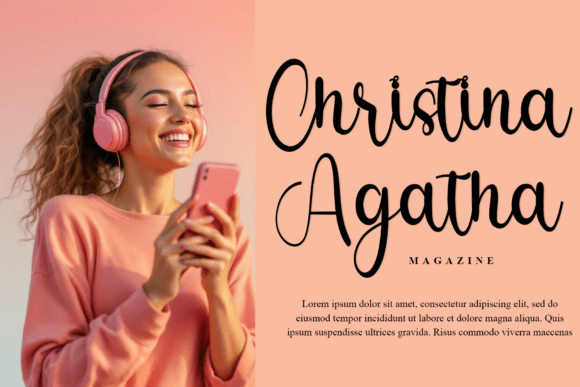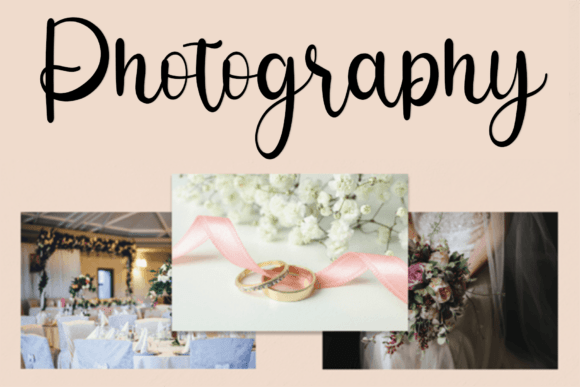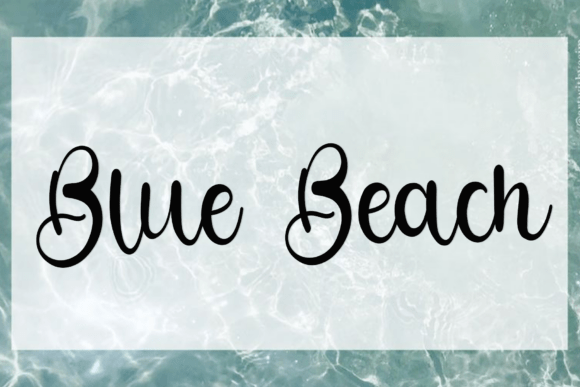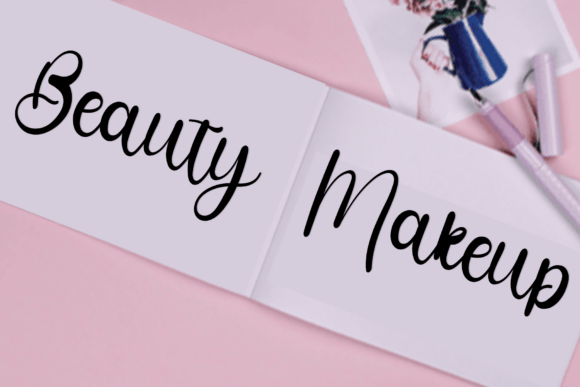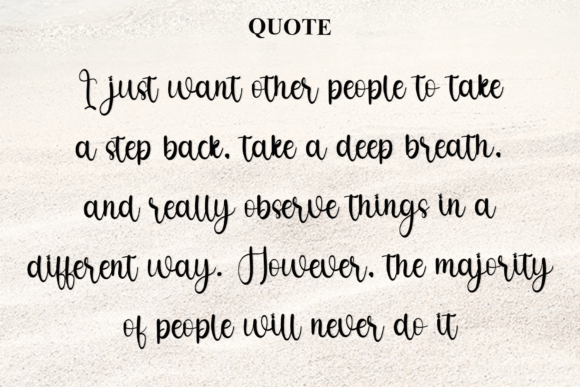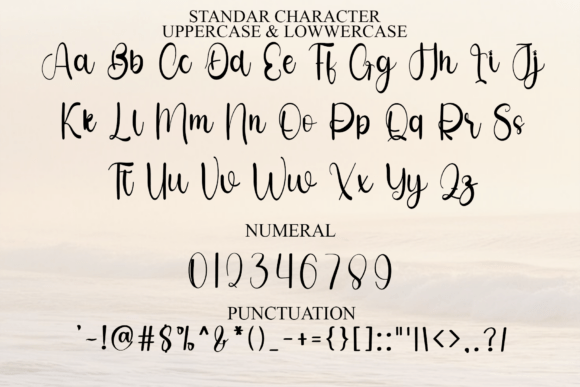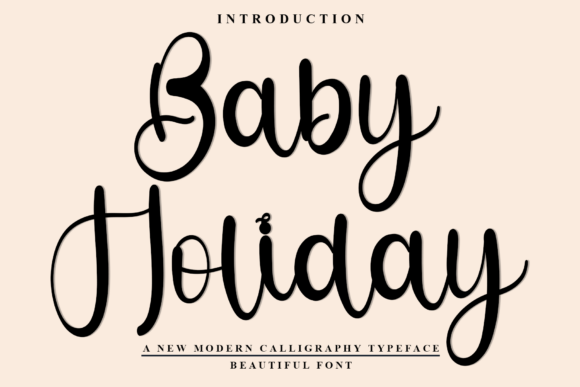
Baby Holiday Font: The Perfect Addition to Your Design Arsenal
Are you tired of using the same old fonts for your personal projects, invitations, and social media graphics? Look no further than the Baby Holiday font! This casual and creative font is designed to exude warmth and friendliness, making it perfect for adding a personal touch to your designs.
The Characteristics of Baby Holiday Font
The Baby Holiday font is characterized by its round, playful strokes that create a relaxed and approachable feel. The font’s charming, hand-drawn aesthetic adds a fun and unique touch to any design, making it perfect for designers and crafters who want to add a personal touch to their work.
One of the standout features of the Baby Holiday font is its versatility. Whether you’re designing a birthday invitation, a social media graphic, or a personal project, this font is sure to make your design stand out. Its casual and creative vibe makes it perfect for a wide range of design applications, from formal to informal.
Technical Specifications
Why Designers and Crafters Love Baby Holiday Font
So, why do designers and crafters love the Baby Holiday font? For starters, its unique and charming aesthetic adds a fun and creative touch to any design. The font’s hand-drawn look and feel also make it perfect for designs that require a personal touch, such as birthday invitations, greeting cards, and social media graphics.
Another reason designers and crafters love the Baby Holiday font is its versatility. The font can be used for a wide range of design applications, from formal to informal, and its casual vibe makes it perfect for designs that require a relaxed and approachable feel.
How to Use Baby Holiday Font in Your Designs
In conclusion, the Baby Holiday font is a must-have for designers and crafters who want to add a personal touch to their work. Its casual and creative vibe, charming hand-drawn aesthetic, and versatility make it perfect for a wide range of design applications. With its standard PUA Encoded glyphs and compatibility with a variety of application engines, the Baby Holiday font is easy to use and accessible.